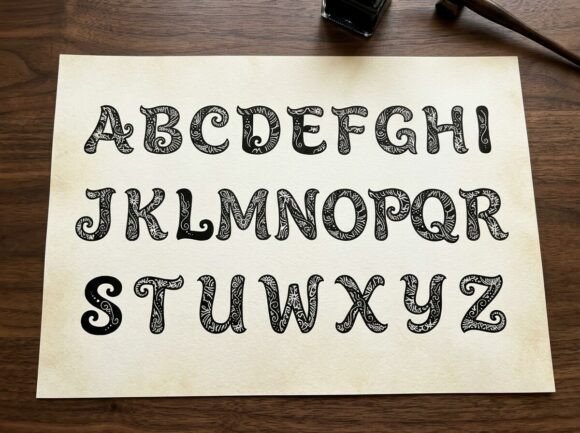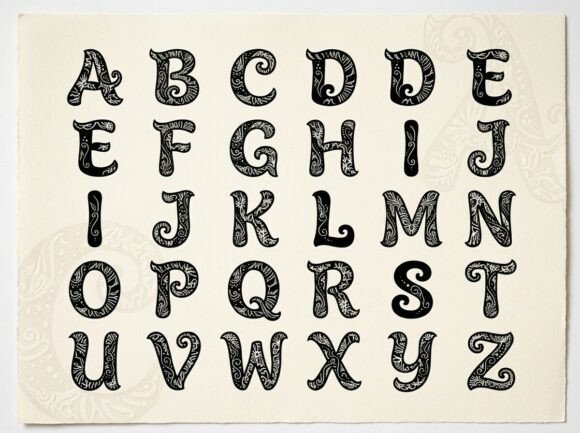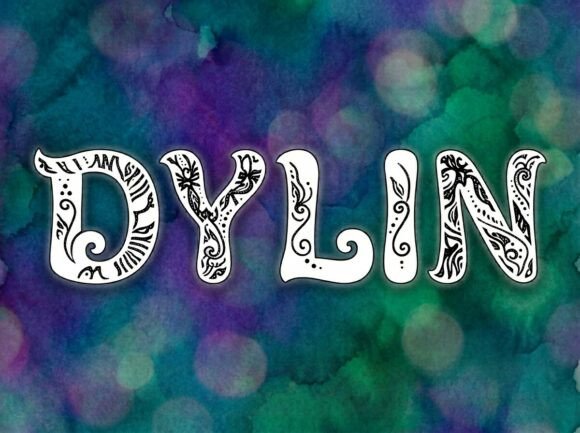
Introducing Dylin Font: The Ultimate Decorative Display Font for Creative Minds
Are you tired of using the same old fonts for your creative projects? Look no further than Dylin Font, a stunning decorative display font designed to turn heads. With its unique artistic elements and strong visual personality, this font is perfect for creators who want to break away from the ordinary and make a statement.
What Makes Dylin Font So Special?
Dylin Font is a versatile decorative display font that is perfect for bold headlines, artistic logos, and creative packaging. Its unique design elements and strong visual personality make it an excellent choice for creators who want to add a touch of elegance and sophistication to their work. Whether you’re a graphic designer, a crafty DIY enthusiast, or a marketing professional, Dylin Font is sure to impress.
Key Features of Dylin Font
- Unique Artistic Elements: Dylin Font features unique artistic elements that set it apart from other fonts. Its intricate design and elegant lines make it perfect for creating stunning headlines and titles.
- Strong Visual Personality: This font has a strong visual personality that is sure to grab attention. Its bold and eye-catching design makes it perfect for creating artistic logos and creative packaging.
- Professional and Polished Finish: Despite its bold and artistic design, Dylin Font maintains a professional and polished finish that is perfect for high-end designs.
Why Choose Dylin Font?
So why choose Dylin Font over other decorative display fonts? Here are just a few reasons:
- Unique Design: Dylin Font features a unique design that is sure to turn heads. Its intricate lines and elegant curves make it perfect for creating stunning headlines and titles.
- Versatility: This font is versatile enough for use in a variety of creative projects, from bold headlines and artistic logos to creative packaging and more.
- Professional Finish: Despite its bold and artistic design, Dylin Font maintains a professional and polished finish that is perfect for high-end designs.
- Use it for Headlines: Dylin Font is perfect for creating bold and eye-catching headlines. Try using it to add a touch of elegance and sophistication to your next design project.
- Experiment with Colors: Dylin Font looks great in a variety of colors. Try experimenting with different colors and gradients to add depth and interest to your designs.
- Pair it with Other Fonts: Dylin Font pairs well with a variety of other fonts. Try pairing it with a clean and simple font to create a striking contrast.
In conclusion, Dylin Font is a stunning decorative display font that is perfect for creators who want to break away from the ordinary and make a statement. With its unique artistic elements, strong visual personality, and professional and polished finish, this font is sure to impress. Whether you’re a graphic designer, a crafty DIY enthusiast, or a marketing professional, Dylin Font is a great choice for any creative project.